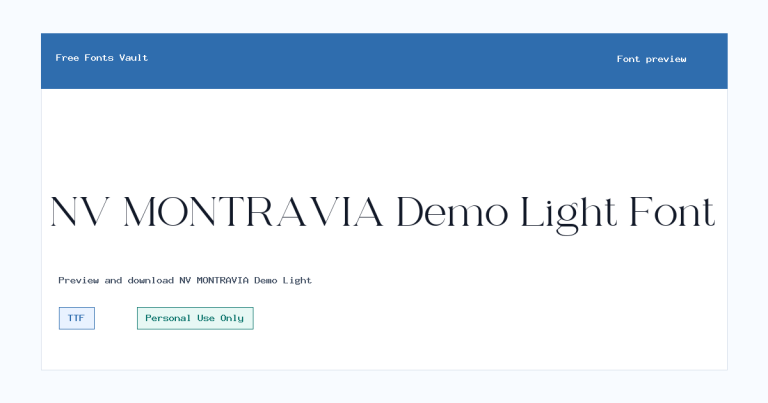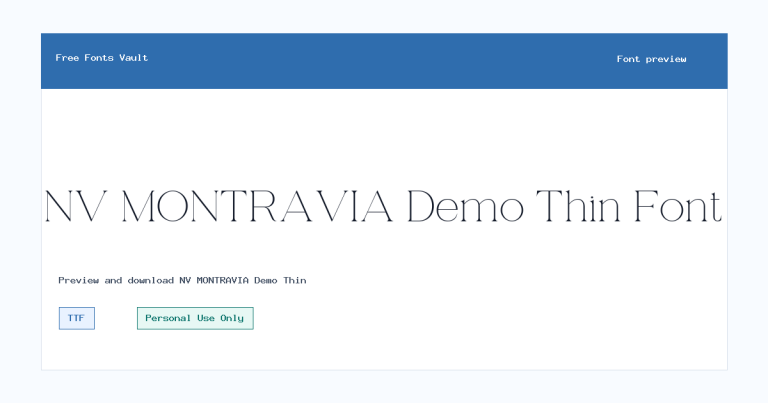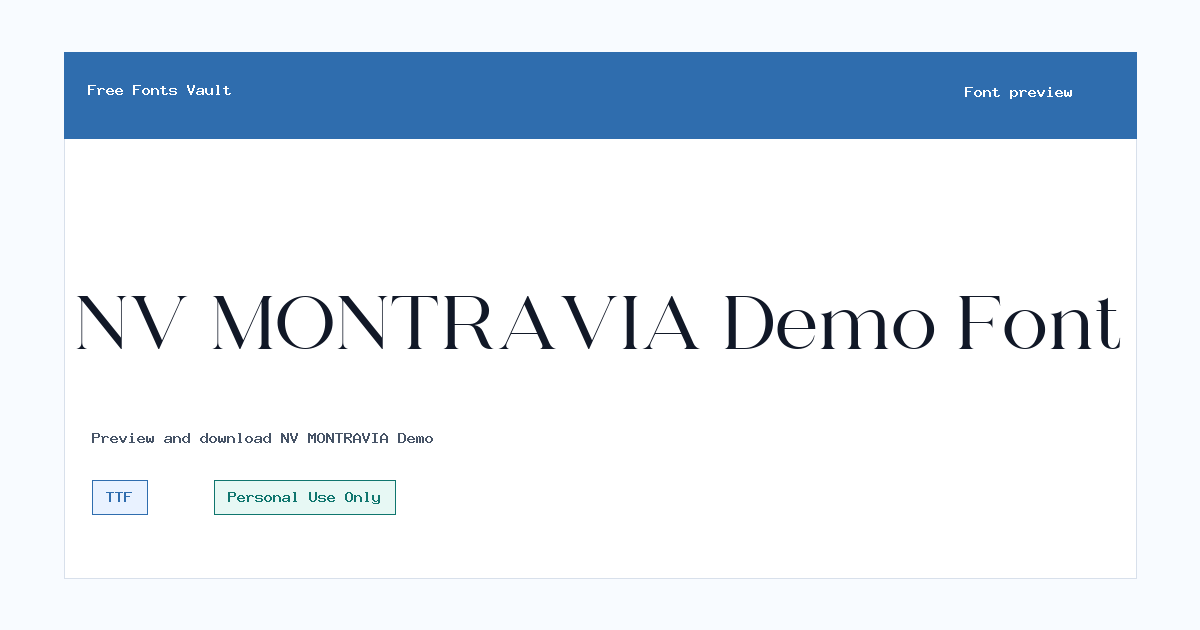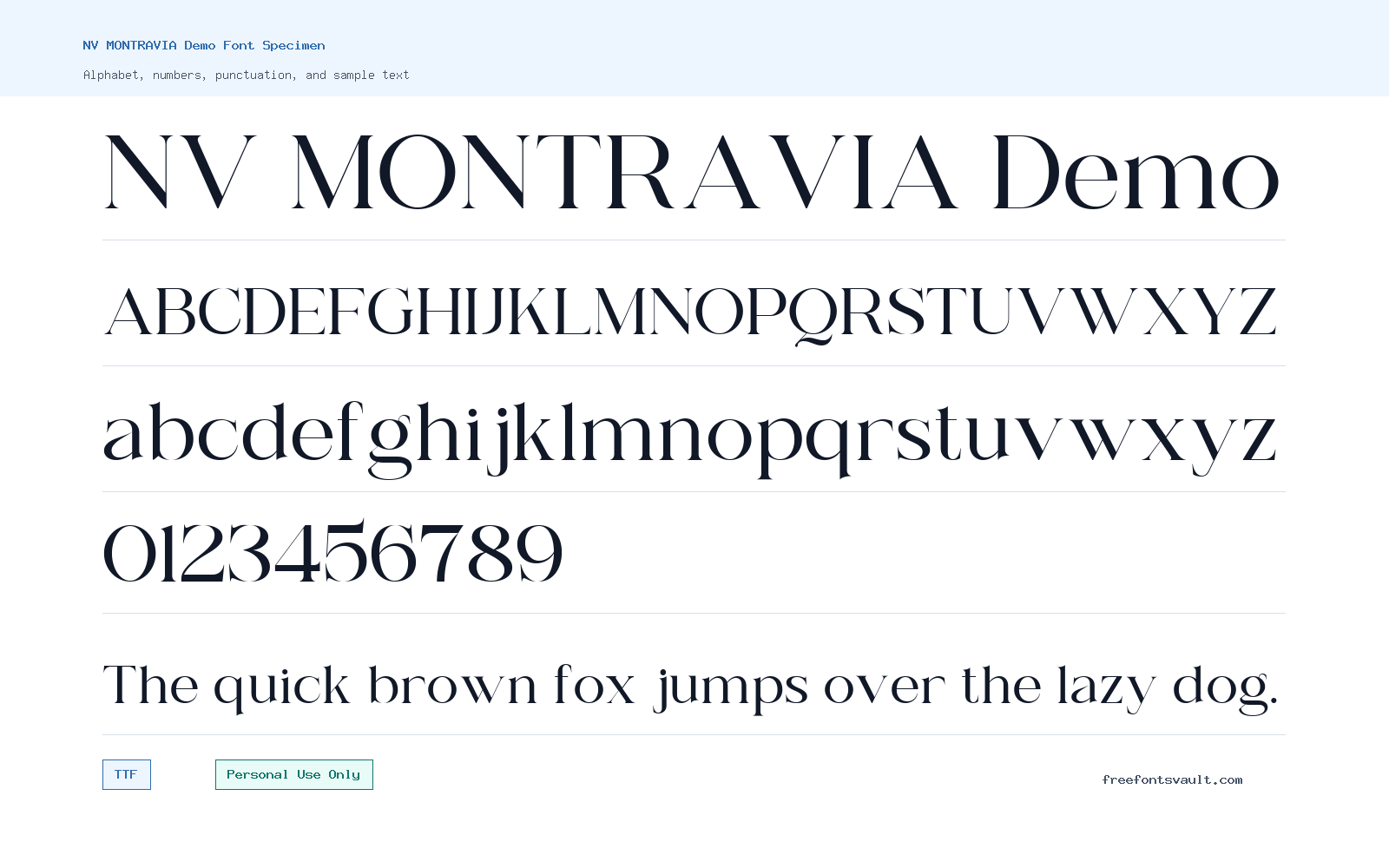
NV MONTRAVIA Demo
NV MONTRAVIA Demo font.
NV MONTRAVIA Demo is a personal-use serif font family from NovaraType, with Regular and Bold TTF styles for trying out polished headings, logo drafts, posters, and other display-focused design ideas.
About NV MONTRAVIA Demo
NV MONTRAVIA Demo is best approached as a serif display font for testing a refined visual direction before committing it to a finished project. The available styles are Regular and Bold, which gives you enough contrast to build a simple hierarchy: use the Bold style for the main title or logo text, then use Regular for shorter supporting lines. Because the license information marks it as Personal Use Only, it is suitable for personal previews, student work, private mockups, and non-commercial experiments unless you obtain permission or a commercial license from the rights holder.
For design work, start by previewing the font in the exact words you plan to use. Serif fonts can change character depending on the letters in a brand name, headline, or poster title, so test uppercase, lowercase, numbers, and punctuation before downloading. NV MONTRAVIA Demo should work best in places where the text has room to breathe: logo concepts, editorial-style headings, invitation mockups, social graphics, packaging drafts, title cards, and poster layouts. For longer paragraphs, check readability carefully at smaller sizes. A decorative or high-contrast serif can look strong in a headline but may feel tiring in body copy, especially on mobile screens or dense web layouts.
- Regular and Bold styles are included, giving designers a simple two-weight setup for headings, subheads, and short display text.
- The family is identified as a serif font, making it a natural fit for projects that need a more editorial, classic, or formal tone.
- Logo concepts and brand-name mockups where you want to test a serif look before licensing the final font.
- Poster titles, event graphics, and social media headers that use short, prominent text.
- Editorial-style web mockups, magazine cover drafts, and landing page hero headings.
- Invitation designs, packaging drafts, and presentation title slides for personal or internal concept work.
- Typography pairing experiments using the Bold style for display text and Regular for smaller supporting lines.
Use NV MONTRAVIA Demo for short, high-impact text first. Try the Bold style for the main headline and the Regular style for a subtitle, date, tagline, or small accent line. In logo work, test spacing manually because serif letterforms often need optical kerning adjustments. For posters and web mockups, pair it with a clean sans serif for body text so the serif style remains the visual focus. Avoid relying on it for long reading sections until you have checked line spacing, size, and screen legibility. Since the font is marked for personal use only, keep commercial mockups clearly separate until licensing is resolved.
What is NV MONTRAVIA Demo best used for?
It is most useful for testing serif display typography in logo drafts, posters, headings, invitations, packaging concepts, and web hero mockups.
Is NV MONTRAVIA Demo good for body text?
It may work for short supporting lines, but you should test readability before using it in paragraphs. For longer text, pair it with a simpler body font.